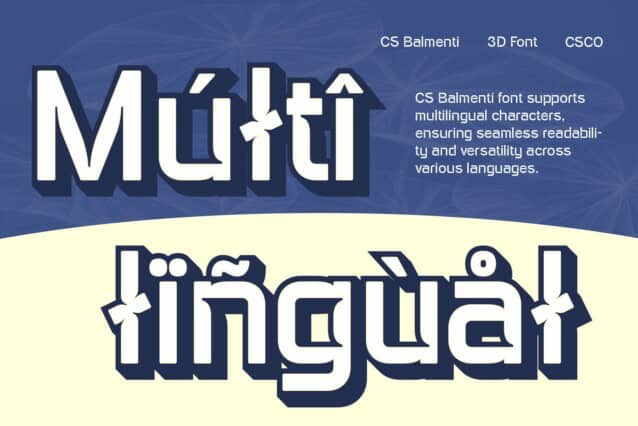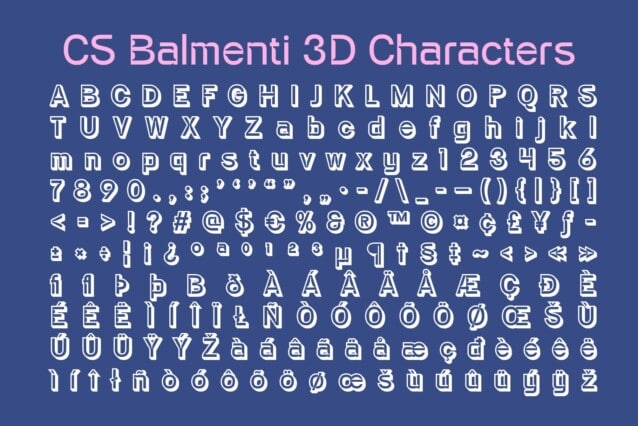
CS Balmenti 3D Font
CS Balmenti 3D Font is a modern display sans-serif font that embodies an industrial, high-tech, and futuristic aesthetic. With its bold, geometric, and sturdy structure, this font exudes strength and precision. The 3D effect enhances its visual impact, adding depth and dimension to every letter, making designs appear more dynamic and powerful.